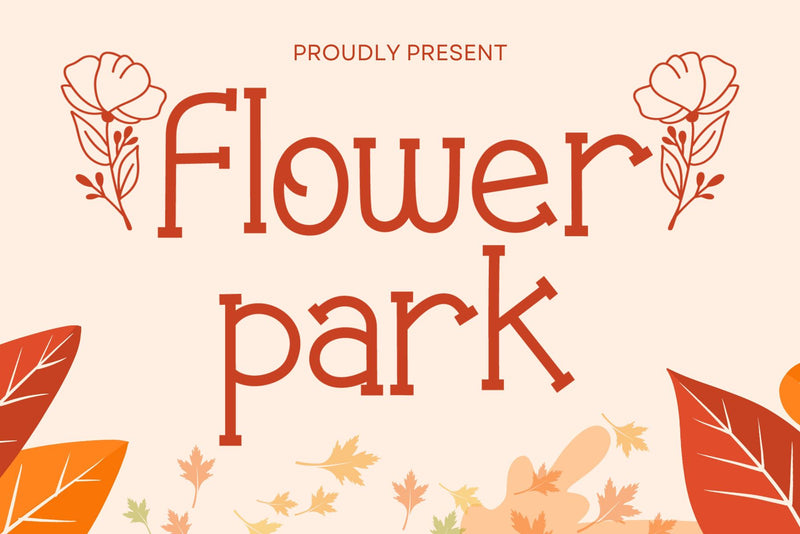
Flower Park - Autumn Display Font
Flower Park is a sweet and playful display font. This font is perfect for the autumn theme, floral design, and nature theme, fitting a wide range of contexts. Add it to your creative ideas and notice how it makes them stand out!
Flower Park Features :
- (a-z) titling, (a-z) swashes, ligatures
- Support multilingual; ä ö ü Ä Ö Ü ß ¿ ¡